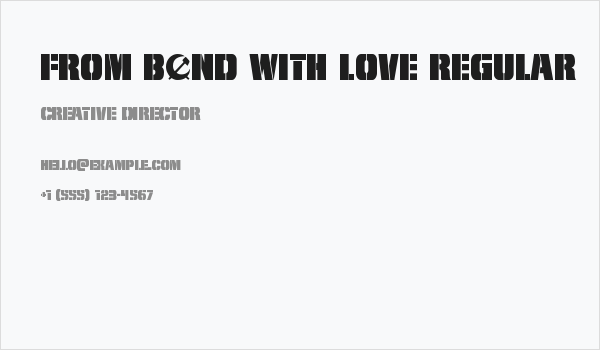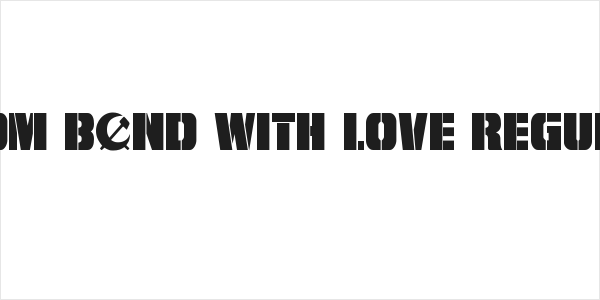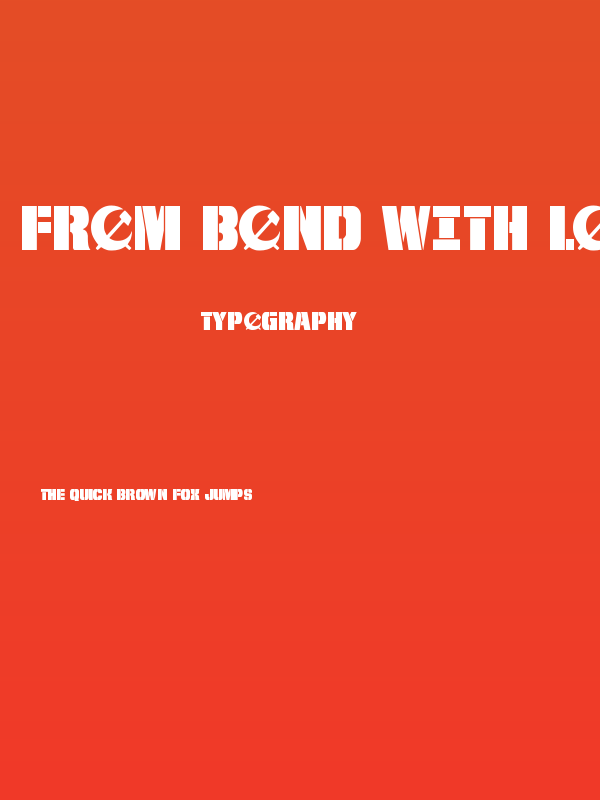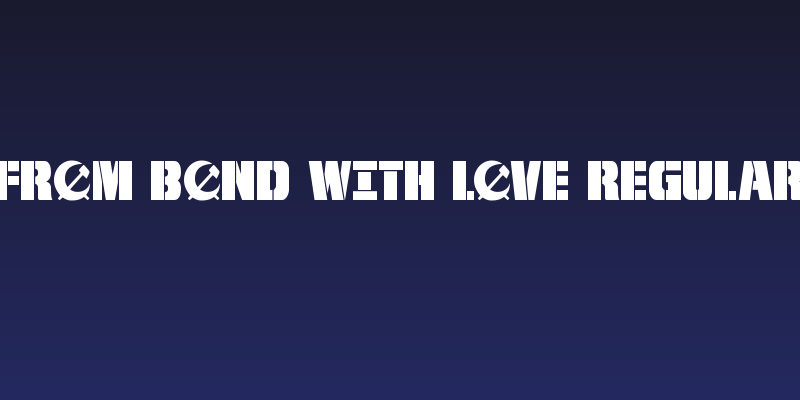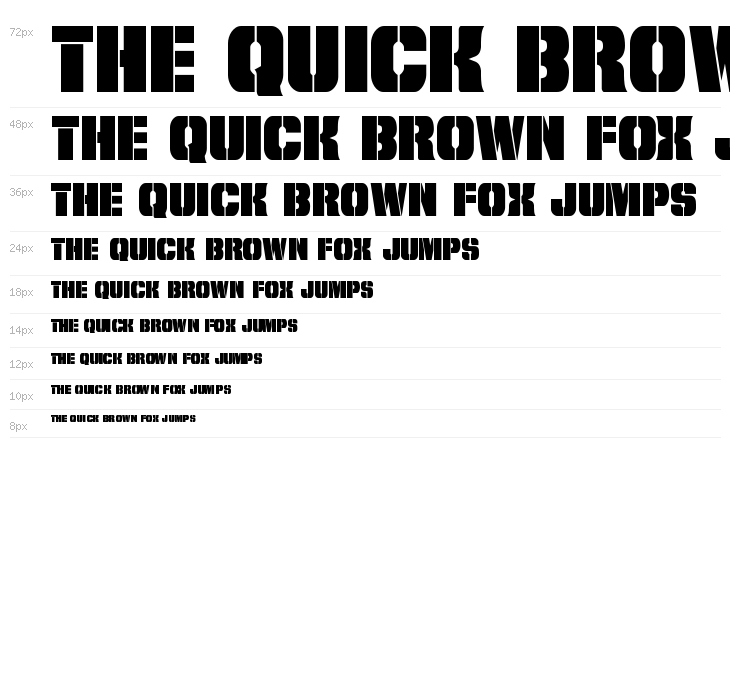
From BOND With Love Regular Font
From BOND With Love Regular Description
This bold and striking font features a stencil-like design with thick, blocky letters that have a modern and industrial feel. The characters are heavily weighted, with a unique cut-out style that adds a sense of ruggedness and strength. The uppercase letters are particularly prominent, making them ideal for attention-grabbing headlines or impactful logos. The numbers and special characters maintain the same bold aesthetic, ensuring consistency across all uses. The font's design is both functional and decorative, suitable for projects that require a strong visual presence.